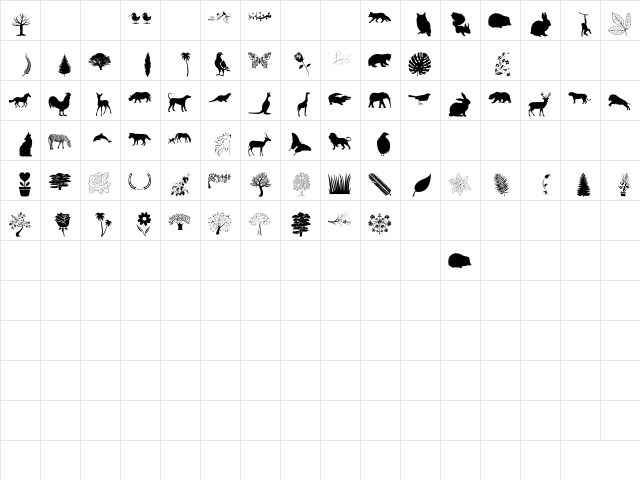
Nature Pro Regular
Design Context for Nature Pro Typeface
Nature Pro is a composed and adaptable typeface that performs quietly and consistently across a wide range of design contexts.